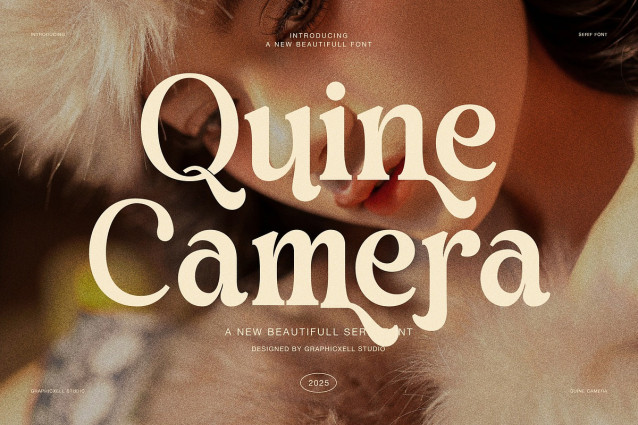
Quine Camera Font
Quine Camera Font is an elegant serif font crafted for designers who value warmth, character, and subtle sophistication. From fashion headlines to interior branding, this typeface creates an atmosphere that feels calm, expressive, and beautifully composed. Because of its gentle curves and organic proportions, Quine Camera delivers elegance without stiffness.
At first glance, the font feels classic. However, its soft terminals and flowing details give it a modern soul. As a result, Quine Camera works perfectly in both contemporary and timeless designs. Moreover, the balanced stroke contrast keeps every letter readable while still feeling refined.